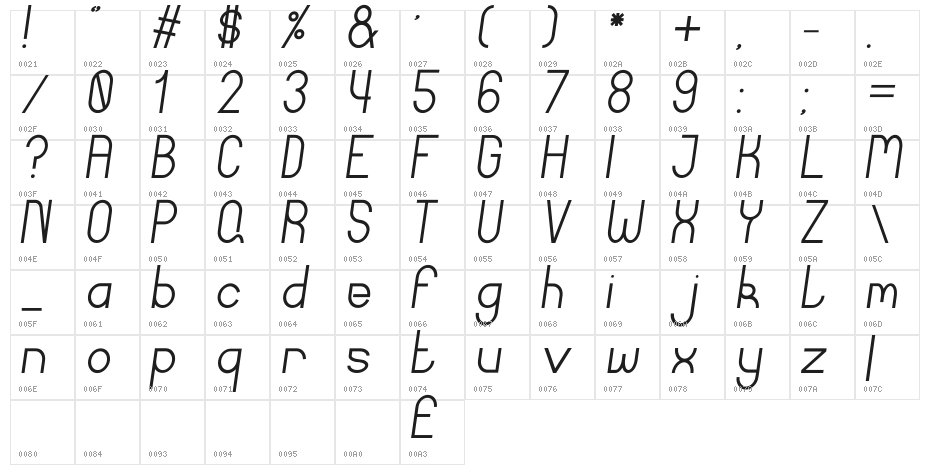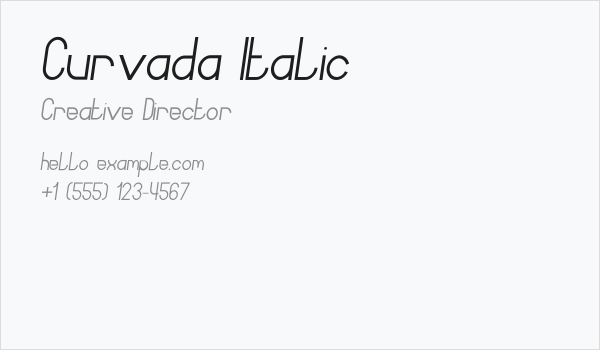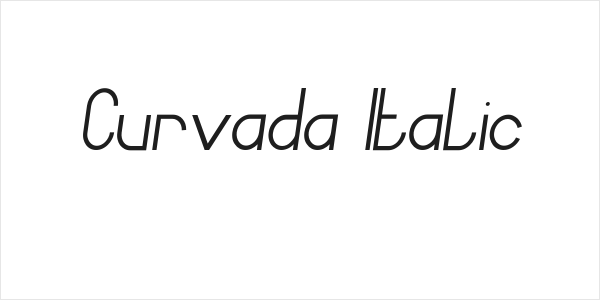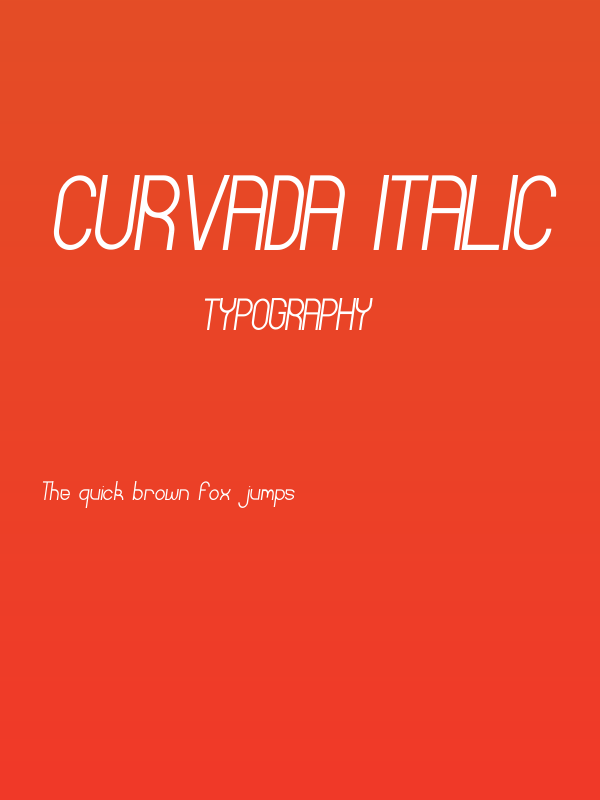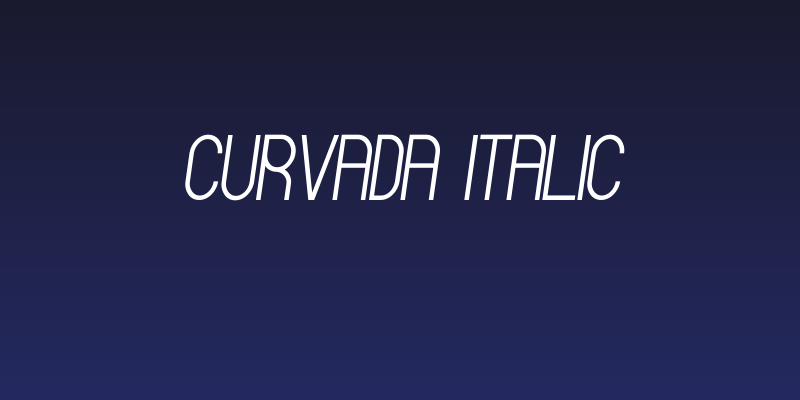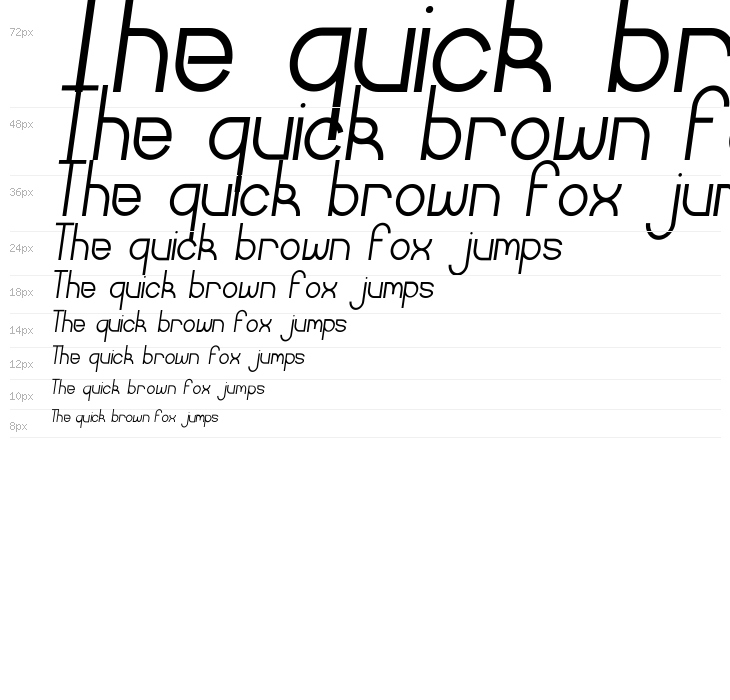
Curvada Italic Font
Curvada Italic Description
This font features a unique, modern design with a distinct italic slant. The characters are elongated and have a smooth, flowing appearance, giving them a sense of motion and elegance. The uppercase letters maintain a consistent height, while the lowercase letters exhibit a playful, yet sophisticated style. The numerals are clear and easy to read, with a similar slant that complements the alphabetic characters. The special characters are well-integrated, maintaining the overall aesthetic of the font. This font is ideal for projects that require a contemporary and stylish look.
| Proposed Projects | Ideal for branding, fashion magazines, modern art posters, and stylish website headers. |